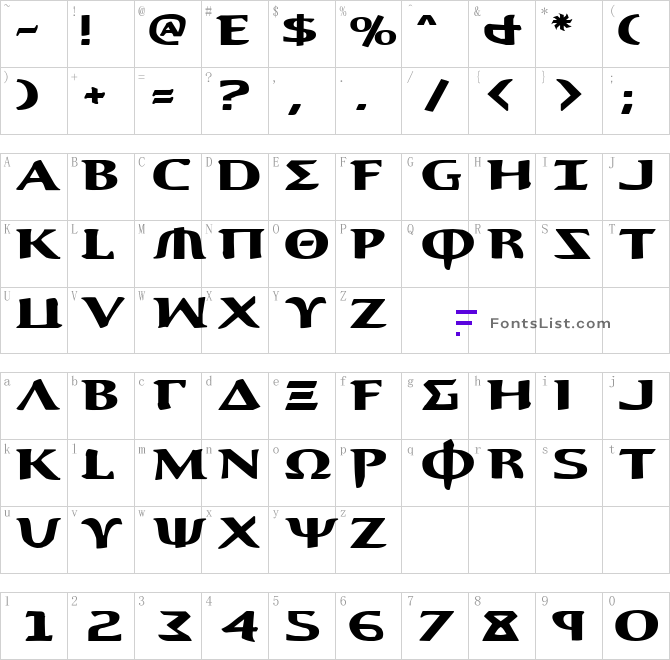
• Font Name:Aegis Expanded
• Subfamily:Expanded
• Subfamily:Aegis Expanded: 2010
• Full Name:Aegis Expanded
• PostScript:AegisExpanded
Aegis-Expanded.ttf is a very beautiful artistic font, Aegis-Expanded.ttf is widely used in the design and printing of various books and pictures,Aegis-Expanded.ttf has a strong visual impact,Aegis-Expanded.ttf is a commonly used font in newspapers, magazines and books, and is used in posters, e-commerce Poster design, store design, logo design, font design and other fields.Aegis-Expanded.